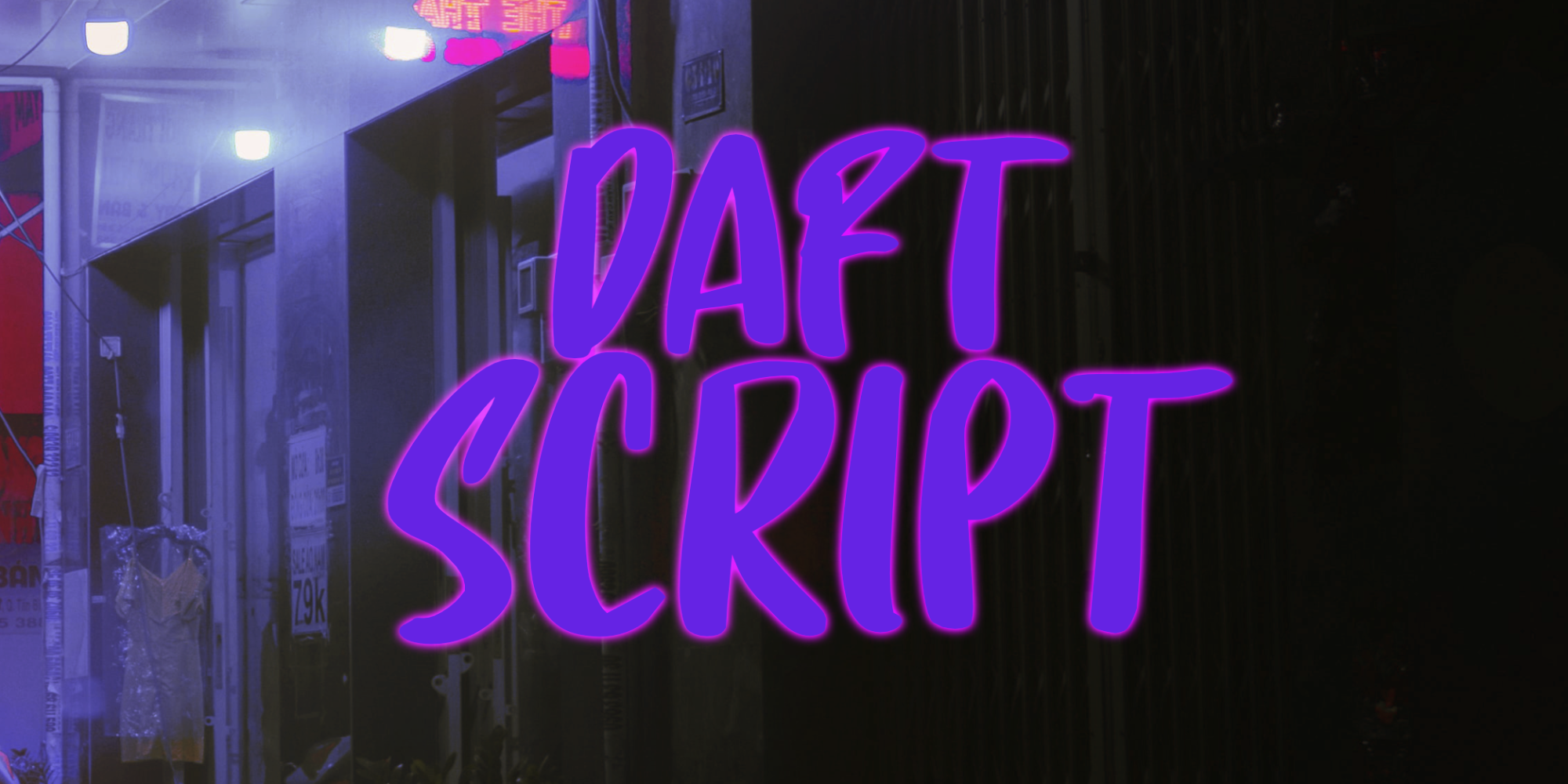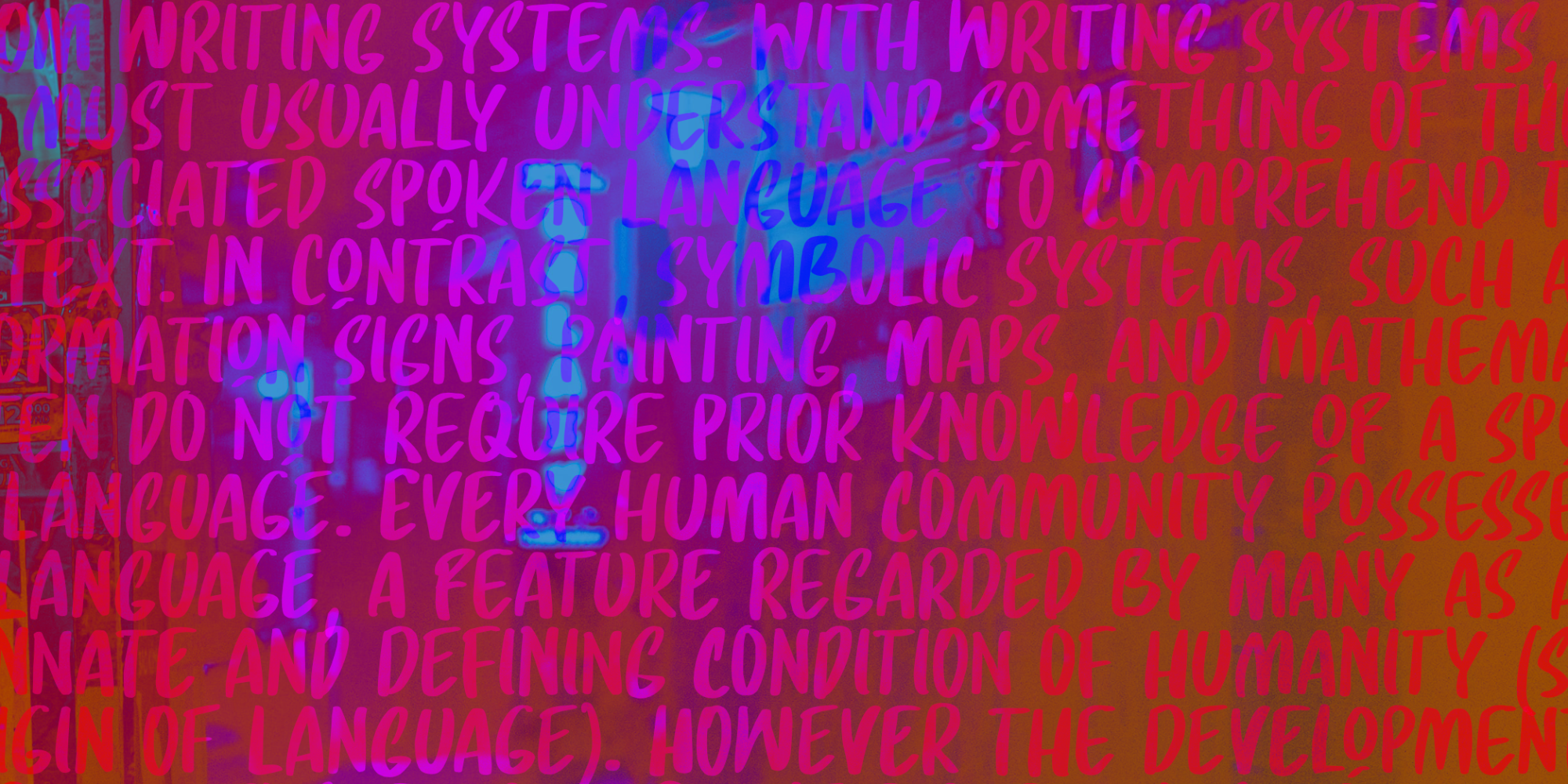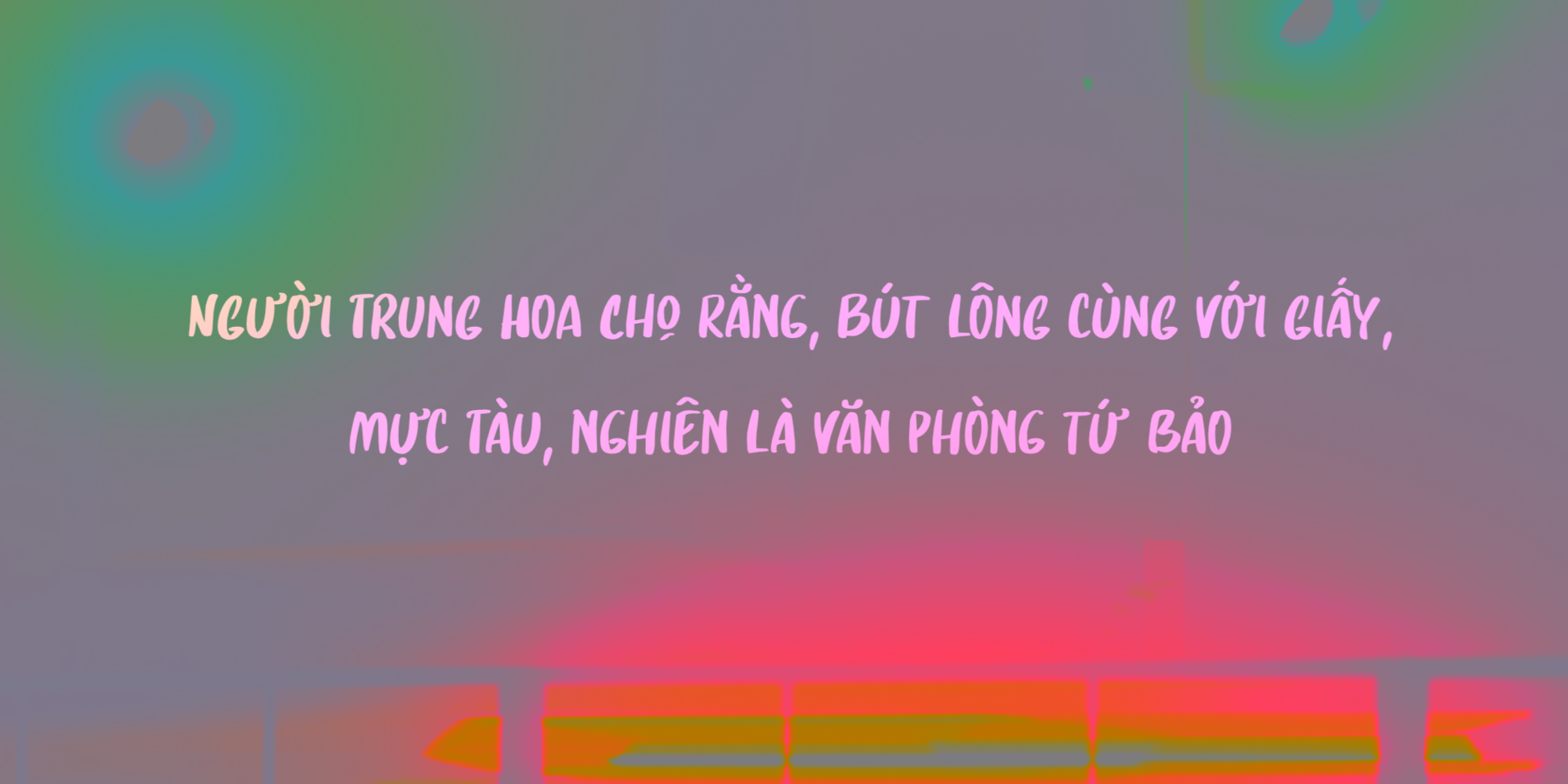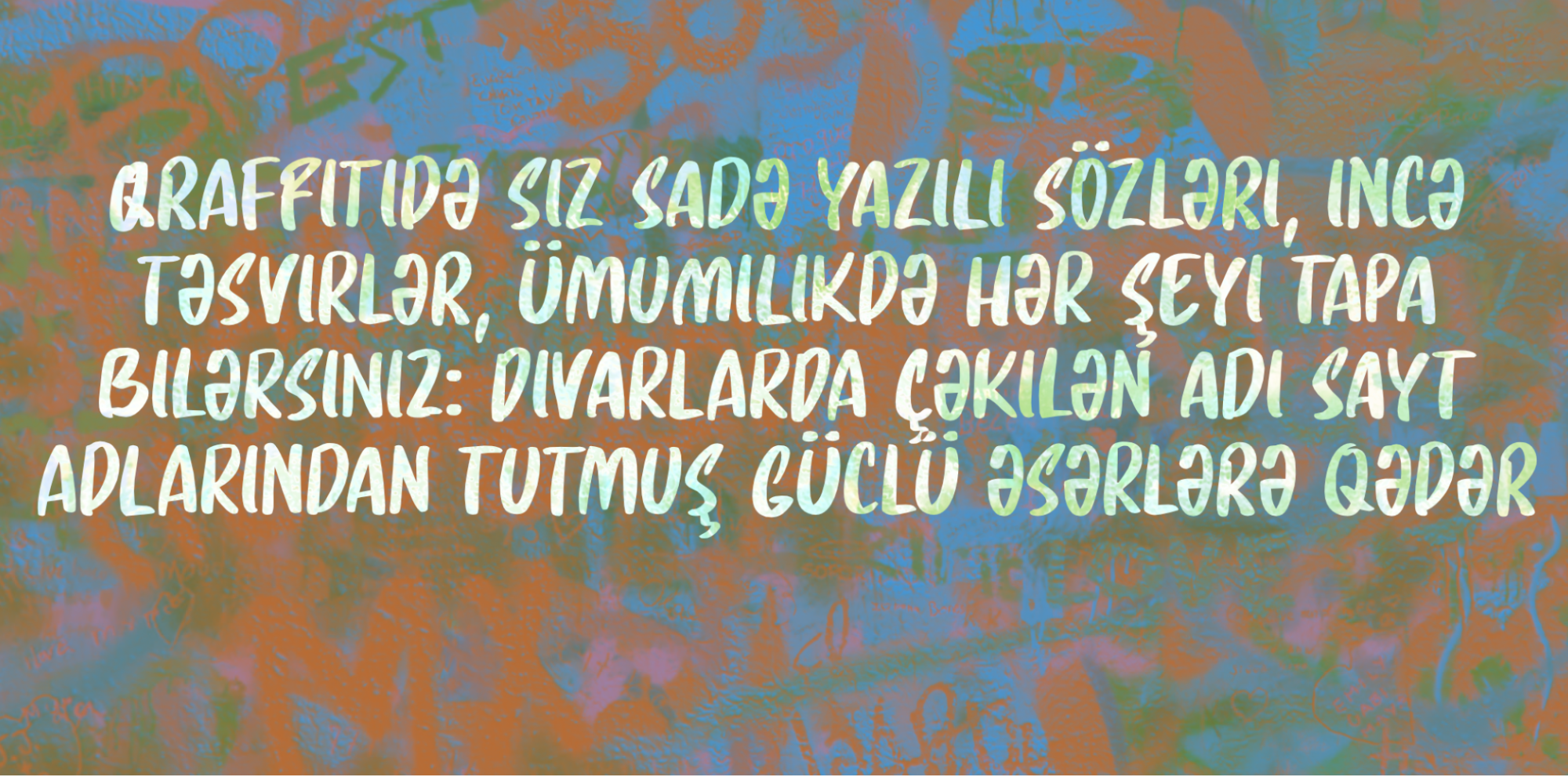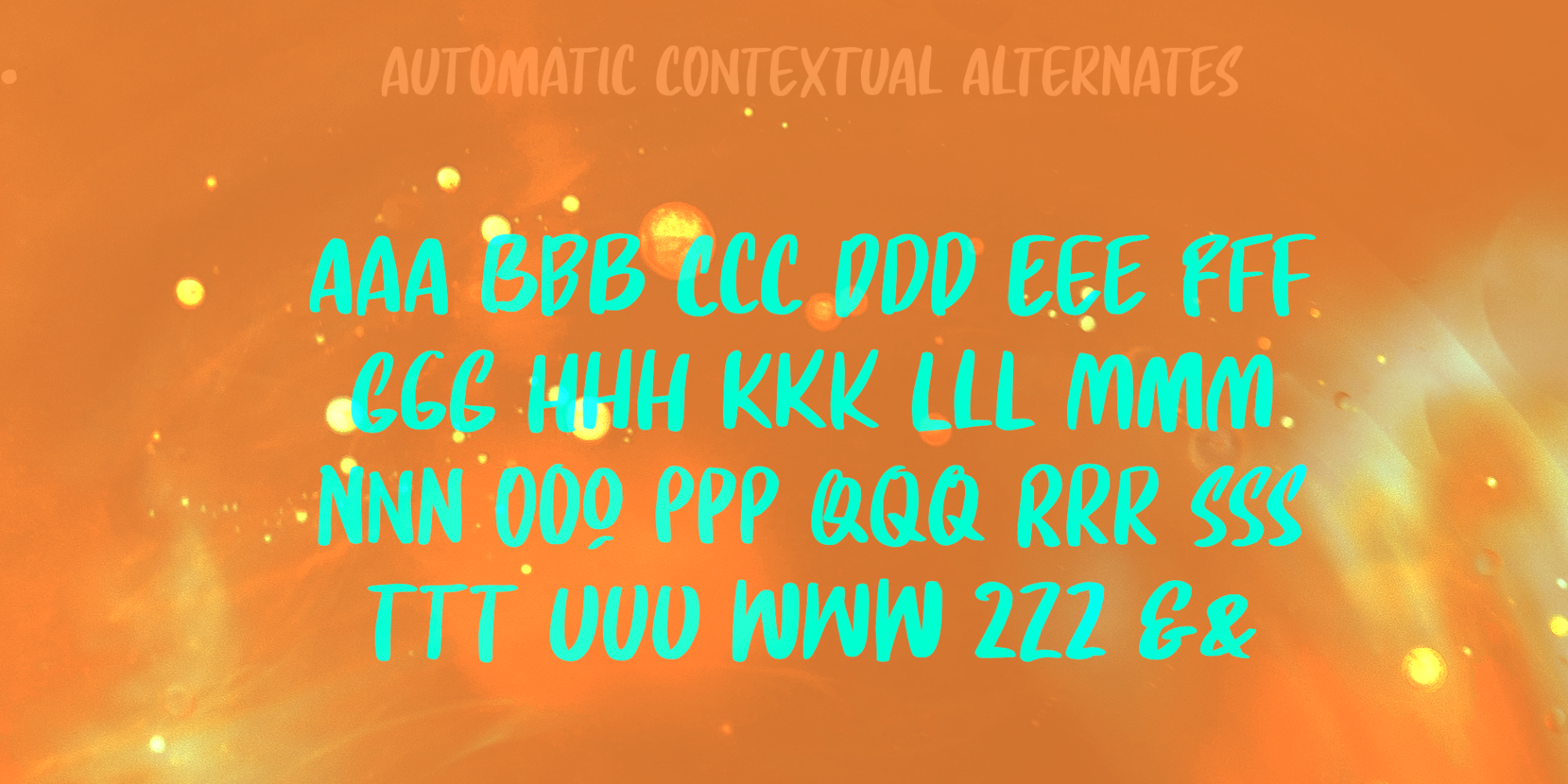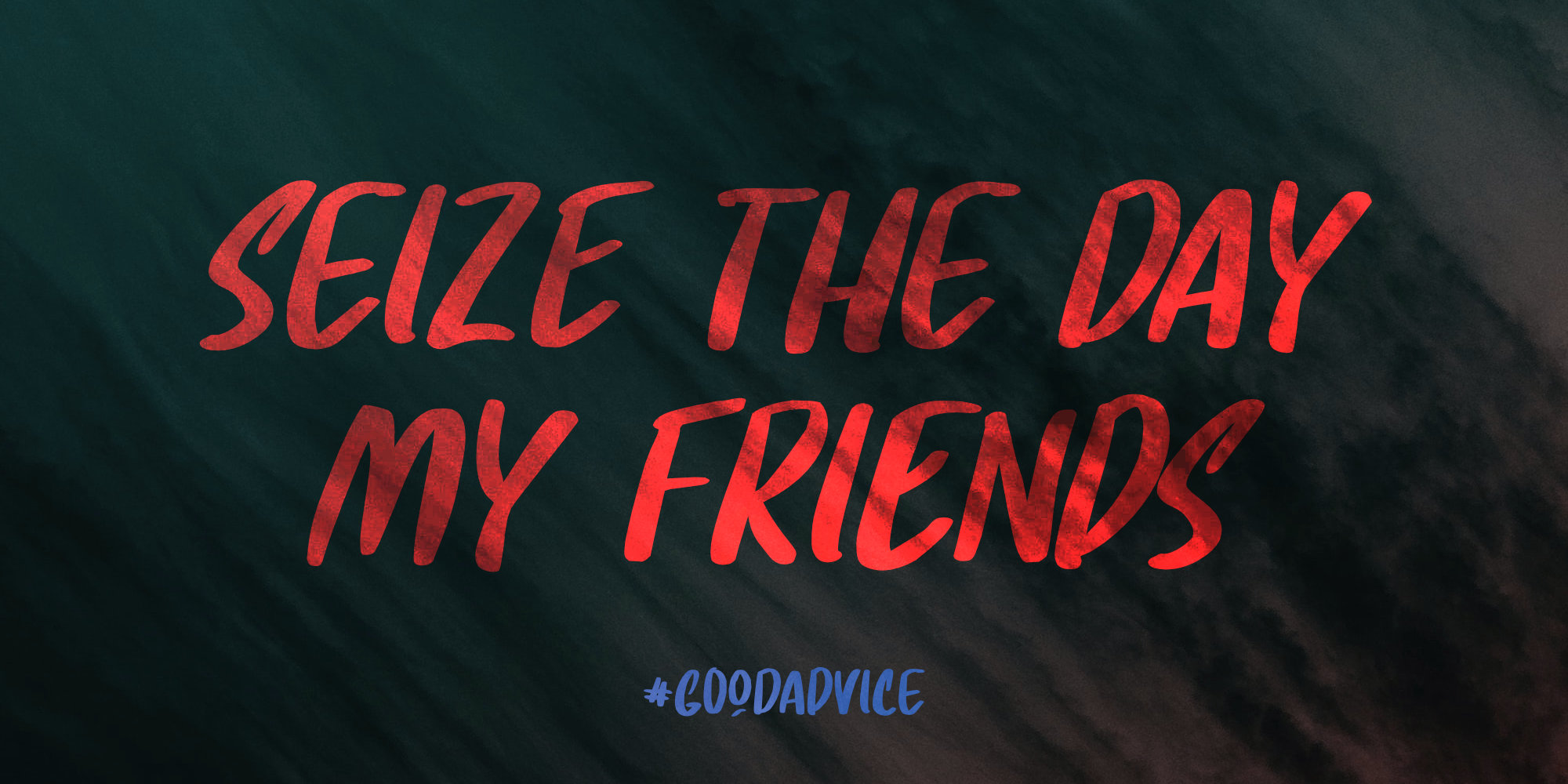
Daft Script (2 fonts)
I prefer the messy script fonts - uneven, no real baseline and with a bit of splatter or rough edges for good measure. Daft script is one of these messy script fonts: it was handmade and it comes with two alternates for the lower case glyphs that cycle as you type. This is an all-caps font, so that means you have 4 options per letter!
I also love languages (I speak 6), so Daft Script comes with fantastic language support, including Vietnamese and Sami.